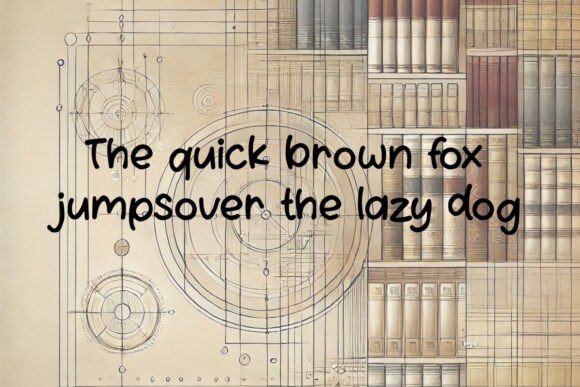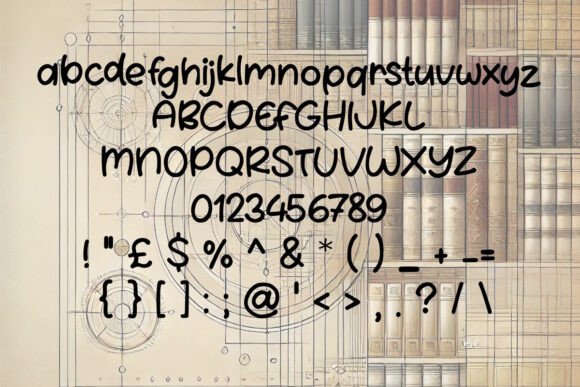
Introducing Exam Day Font: Adding a Touch of Fun and Simplicity to Your Designs
In the world of design, fonts play a crucial role in conveying the tone and personality of a project. If you’re looking for a font that can bring a sense of fun and simplicity to your designs, look no further than Exam Day. This casual handwritten font is both playful and versatile, making it perfect for adding a cheerful and informal touch to any project.
The Characteristics of Exam Day Font
Exam Day font is characterized by its smooth, rounded strokes and approachable style. The font’s casual and handwritten nature gives it a friendly and relatable feel, making it ideal for designs that require a personal touch. The rounded strokes also make the font easy to read, even at smaller sizes, ensuring that your message is conveyed clearly and effectively.
The versatility of Exam Day font makes it suitable for a wide range of design projects. Whether you’re working on a:
- Logo design: Add a playful and informal touch to your brand’s logo with Exam Day font.
- Social media graphics: Create engaging and shareable social media graphics with Exam Day font’s cheerful and approachable style.
- Invitations: Make your invitations stand out with Exam Day font’s unique and playful charm.
- Packaging design: Add a personal touch to your product packaging with Exam Day font’s smooth and rounded strokes.
- Web design: Use Exam Day font to create a friendly and approachable website that reflects your brand’s personality.
Why Choose Exam Day Font?
There are many fonts available that can bring a sense of fun and simplicity to your designs, but Exam Day font stands out from the rest. Here are just a few reasons why:
- Unique and playful style: Exam Day font has a one-of-a-kind style that’s sure to make your designs stand out from the crowd.
- Ease of use: The font’s smooth and rounded strokes make it easy to read, even at smaller sizes.
- Versatility: Exam Day font can be used for a wide range of design projects, from logos and social media graphics to invitations and packaging design.
- High-quality design: The font is designed with high-quality craftsmanship, ensuring that it looks great in any design project.
Tips for Using Exam Day Font
To get the most out of Exam Day font, here are a few tips to keep in mind:
- Pair it with other fonts: Experiment with pairing Exam Day font with other fonts to create a unique and visually appealing design.
- Use it in large and small sizes: Exam Day font looks great in both large and small sizes, making it perfect for headlines and body text.
- Experiment with colors: Try out different colors and color combinations to add an extra layer of personality to your design.
If you’re looking for a font that can bring a sense of fun and simplicity to your designs, Exam Day font is the perfect choice. With its smooth, rounded strokes and approachable style, this casual handwritten font is both playful and versatile. Whether you’re working on a logo design, social media graphics, invitations, packaging design, or web design, Exam Day font is sure to add a cheerful and informal touch to any project. So why wait? Give Exam Day font a try today and see the difference it can make in your designs!